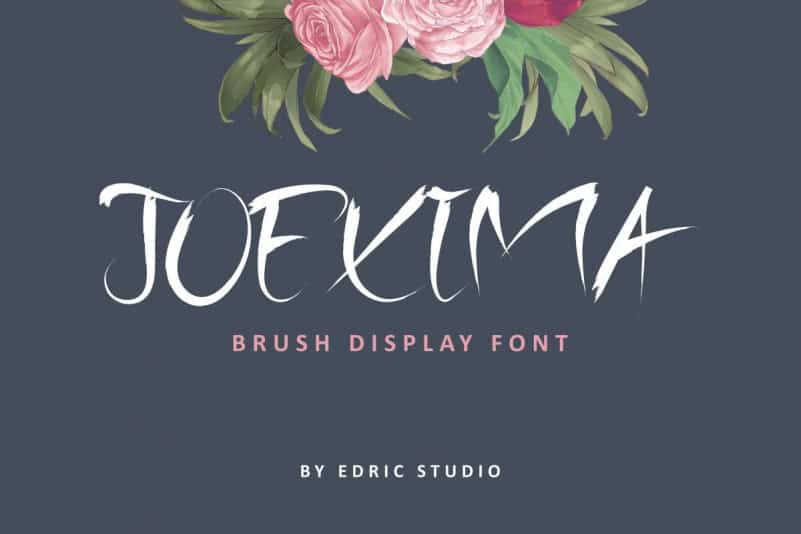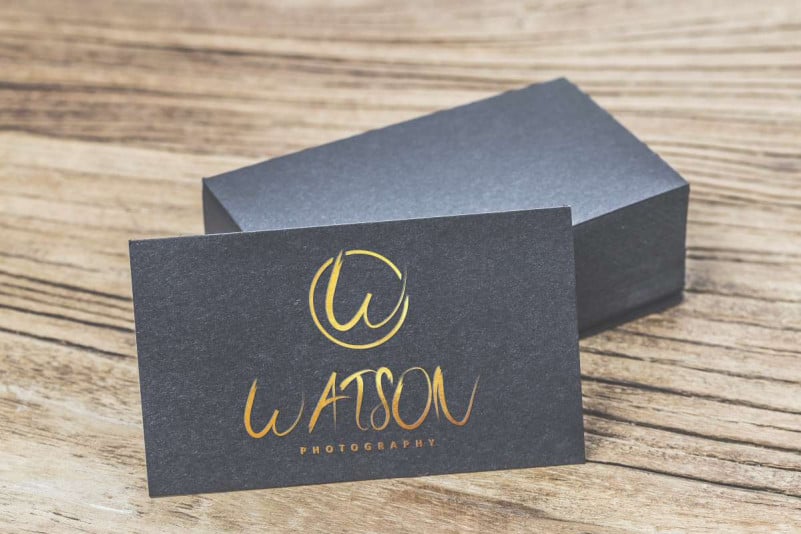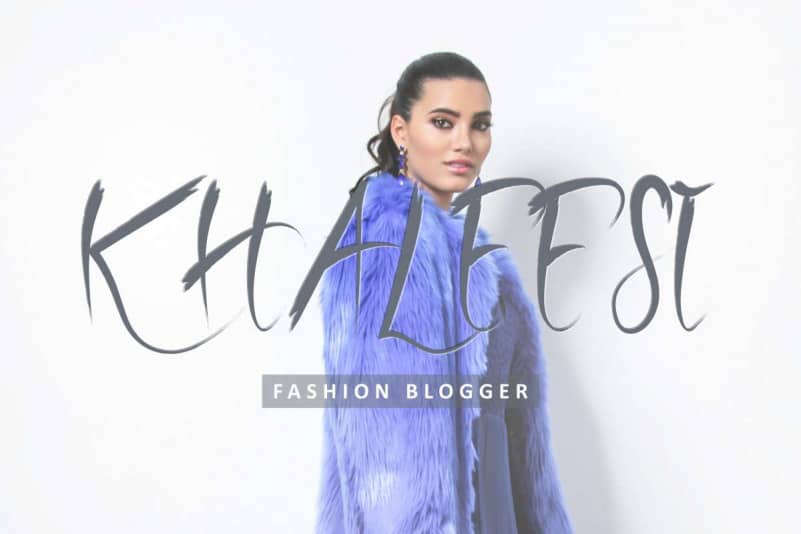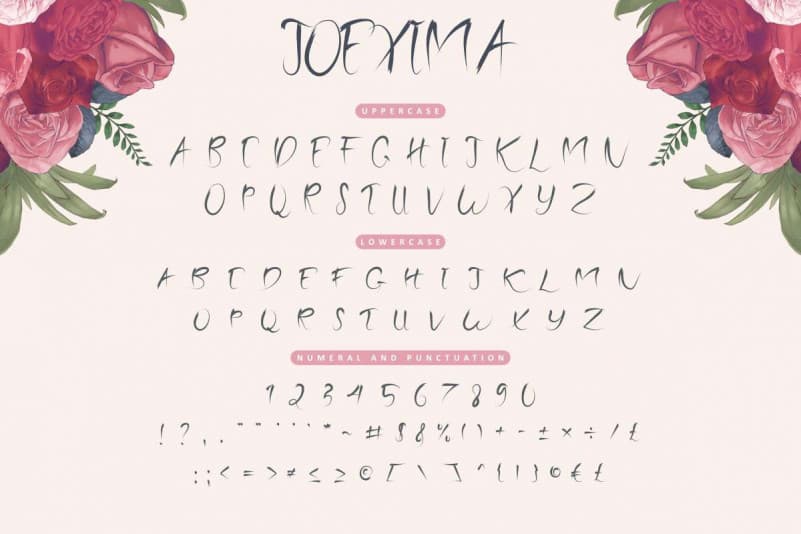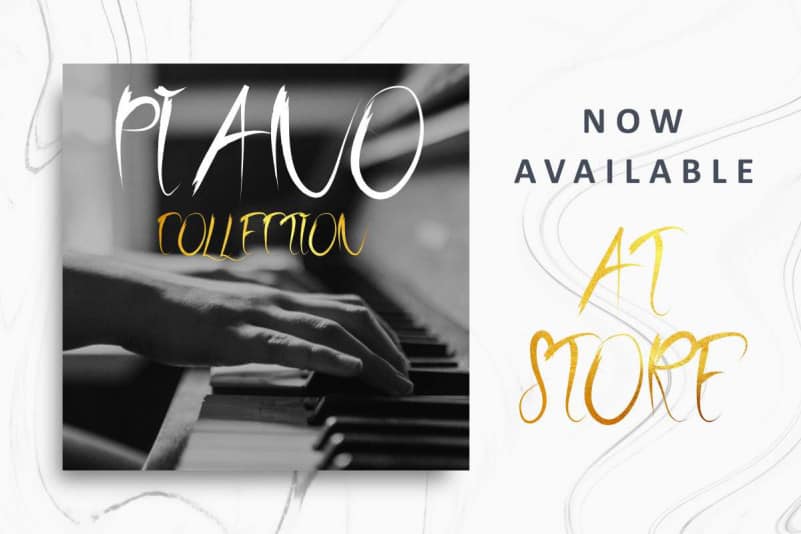
Joexima Brush Font
Please meet our newest font : Joexima Brush Font. Today EdricStudio present to you Joexima Brush Font. This is a handmade font with brush style. Perfectly crafted from our studio in Bandung and Garut. Made by typeface designers : Yasri and Sarah
Joexima Brush Font has an exclusive brush style. With this font you can explore many industries and designs categories : Events, Fashion, Mysterious, Street, etc . With an extended license you can create anything you want : Branding (logo, stationery, bizcard, head letter, folder etc), promotions stuff (flyer, brochure, postcard etc), Digital marketing (Banner, Ads, cover etc), Personal Invitation, Magazine, Website etc.